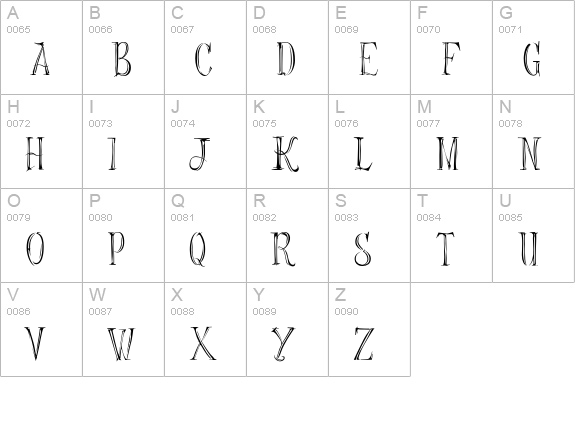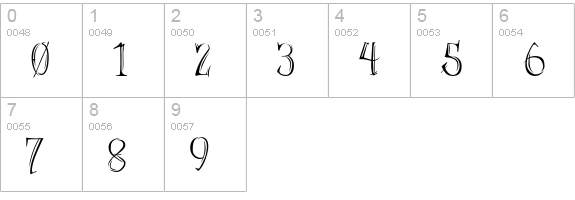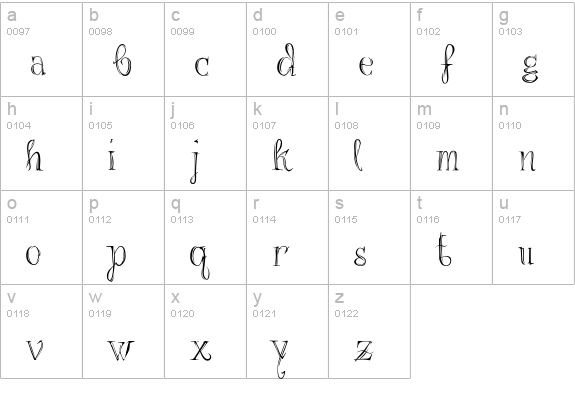
Omatic Font Details
Introducing Omatic font, a modern and sleek typeface that exudes sophistication and elegance. With its clean lines and stylish curves, Omatic is perfect for a wide range of design projects, from branding to editorial design. This versatile font is sure to make your text stand out and leave a lasting impression on your audience. What's even better is that Omatic font is completely free to download! You can get your hands on this stunning typeface at FontsMarket.com, where you'll find a wide selection of high-quality fonts for all your design needs. Don't miss out on the opportunity to add Omatic font to your font library and elevate your designs to the next level. Download it today and let your creativity soar!